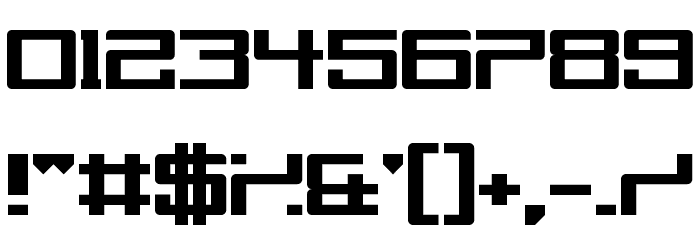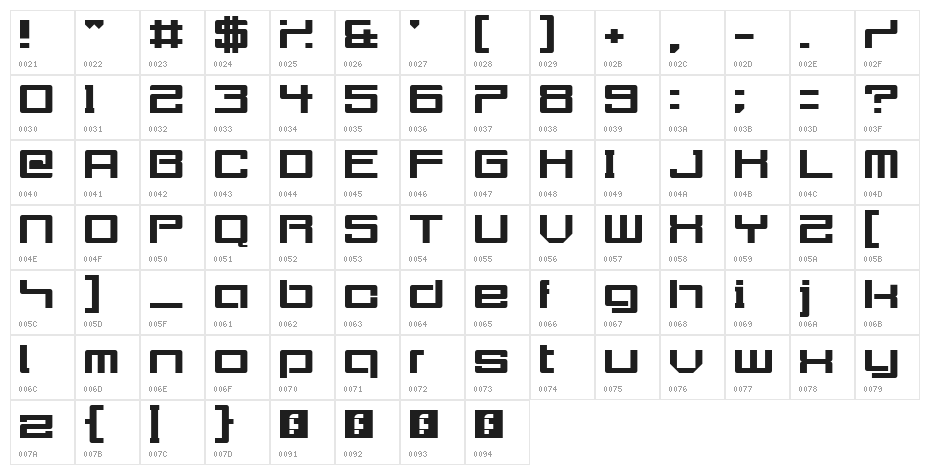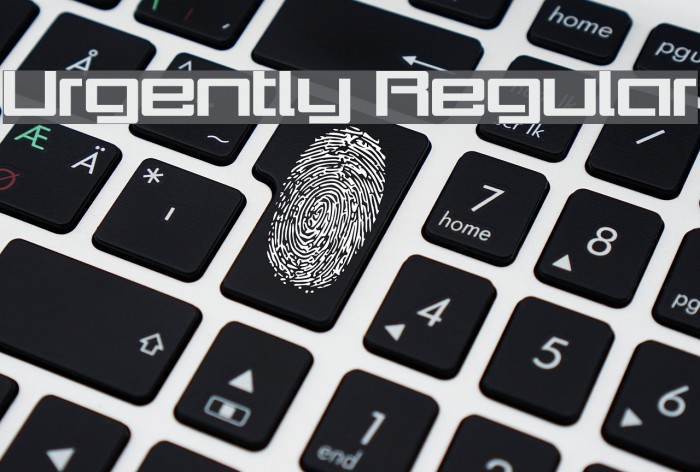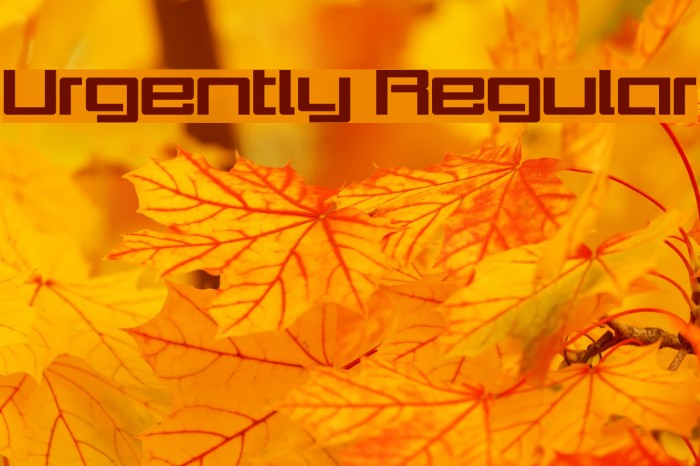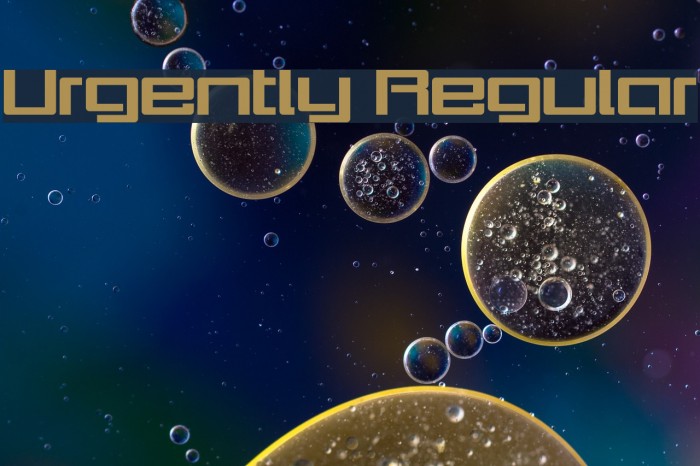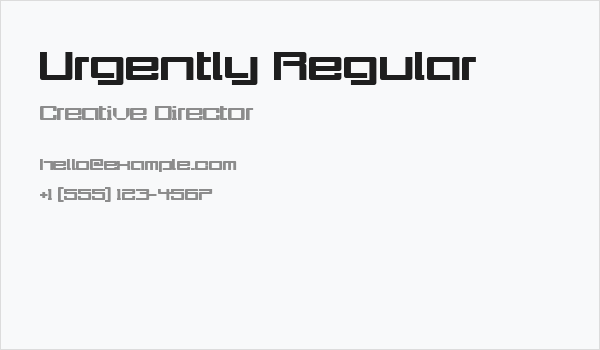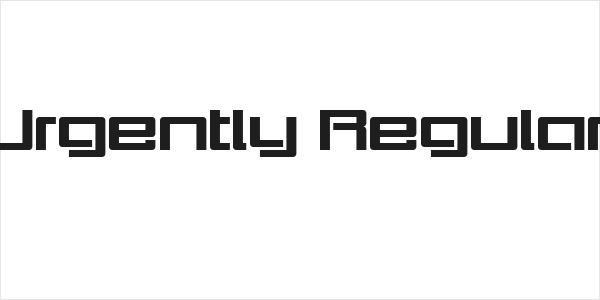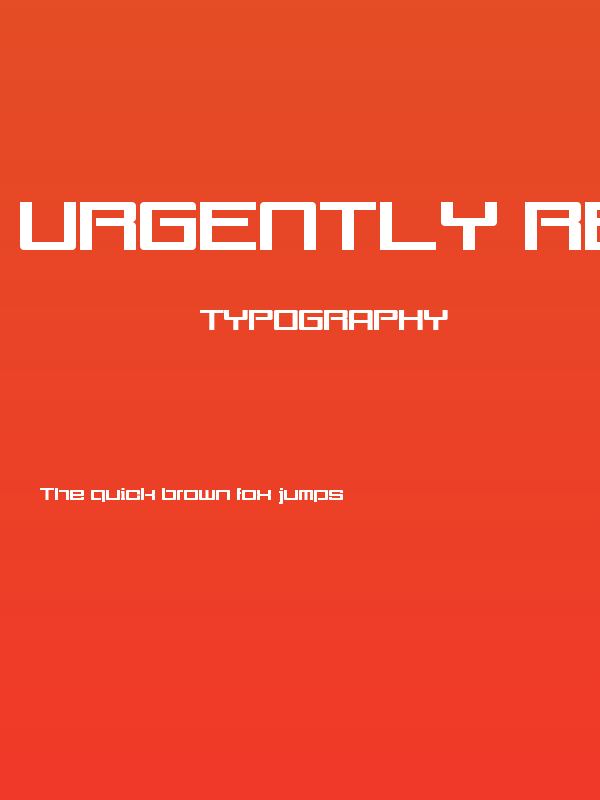
Urgently Regular Font
Urgently Regular Description
This font features a bold, geometric design with a distinctly modern and futuristic aesthetic. The characters are constructed with a uniform stroke width, giving it a monospaced appearance, although it is not strictly monospaced. The angular and blocky nature of the letters provides a strong visual impact, making it suitable for attention-grabbing headlines or titles. The uppercase and lowercase letters maintain a consistent style, with sharp edges and minimal curves, contributing to its contemporary feel. The numerals and special characters are designed to match the overall style, ensuring cohesion across all elements.
| Proposed Projects | Ideal for technology branding, sci-fi themed designs, video game interfaces, and modern advertising campaigns. |